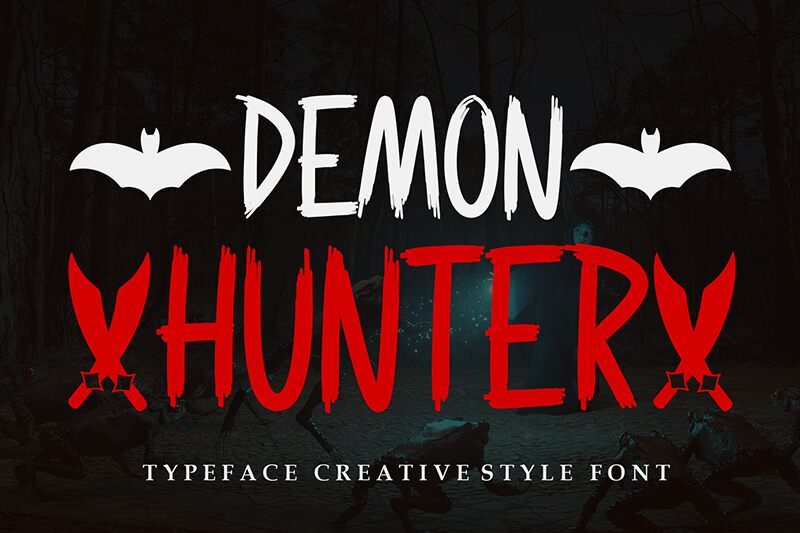
Demon Hunter font by Andi Moz is a free decorative font for personal use. The inspiration behind its letterforms comes from gothic-styled and horror themes. Its distressed texture, mysterious finish, and bold presence create a dark visual concept that looks energetic. Each character is carefully designed to look aesthetically impactful.
This font is very useful in a multitude of design projects that require a dark and mysterious style. Some of those possible projects include movie posters and covers, logo design, visual identity, apparel design, packaging design, book covers, product labels, and social media visuals.